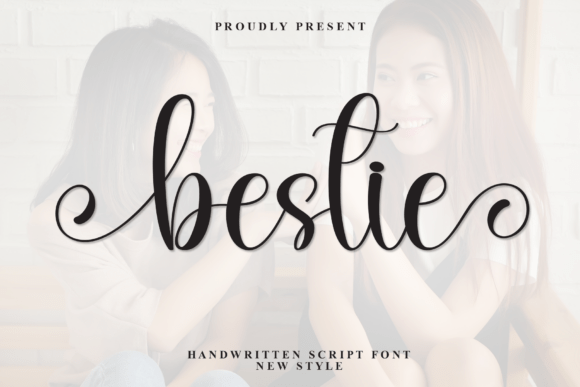
The Bestie Font: Elevate Your Designs with Elegance and Charm
I still remember the design project that led me to discover the Bestie font. I was working on a logo design for a luxury brand, and I needed a font that exuded sophistication and modernity. After hours of searching, I stumbled upon Bestie, and it instantly became my go-to choice. The elegant script font won my heart with its fluid curves, polished details, and natural flow. In this article, I’ll share my experience with Bestie, its features, and how to make the most of it in your designs.
An Honest Review of Bestie Font
What I Love About Bestie ✨
- 💫 Elegant and modern script font perfect for luxury brands and high-end designs
- ✅ Highly versatile and adaptable to various design projects, from logos to social media graphics
- 🎨 Beautifully crafted letterforms with attention to detail and a natural flow
- 📈 Excellent for headlines, titles, and short paragraphs, adding a touch of sophistication to any text
While Bestie is an exceptional font, it’s not without its limitations. Here are a few things to keep in mind:
- 🤔 May not be the best choice for body text or long paragraphs, as it can be a bit ornate
- ⚠️ Some characters may not work well in all contexts, requiring manual adjustments
The Story Behind Bestie Font
Bestie font was designed with the goal of creating a modern script font that captures the elegance of hand-drawn calligraphy. The designer aimed to craft a font that would be both versatile and visually appealing, making it perfect for a wide range of design projects. With its polished details and natural flow, Bestie has become a popular choice among designers and crafters.
Q: What type of projects is Bestie font best suited for?
A: Bestie font is ideal for logos, invitations, packaging, and social media graphics, adding a refined and sophisticated touch to any design.
Q: Is Bestie font suitable for body text or long paragraphs?
A: While Bestie font is beautiful, it’s not the best choice for body text or long paragraphs. It’s better suited for headlines, titles, and short paragraphs.